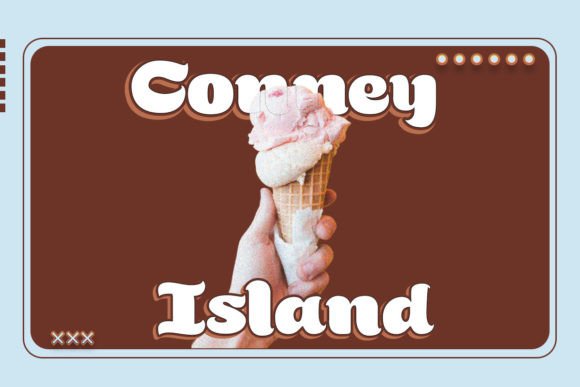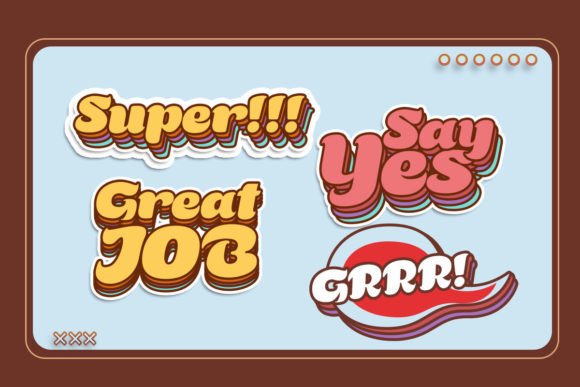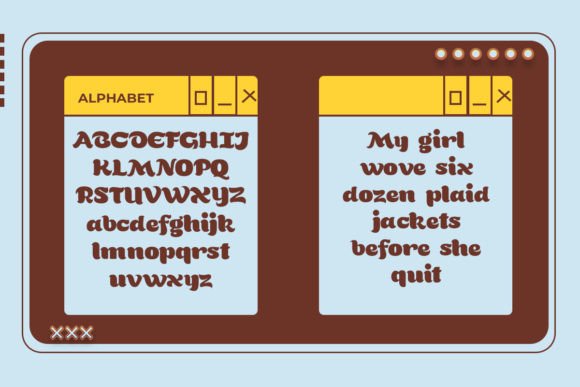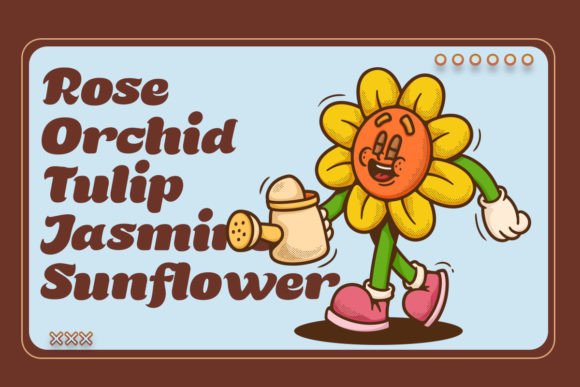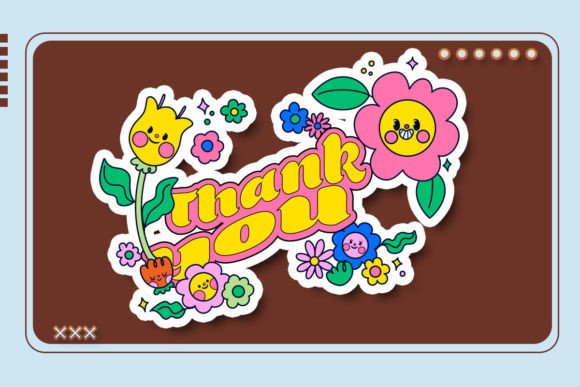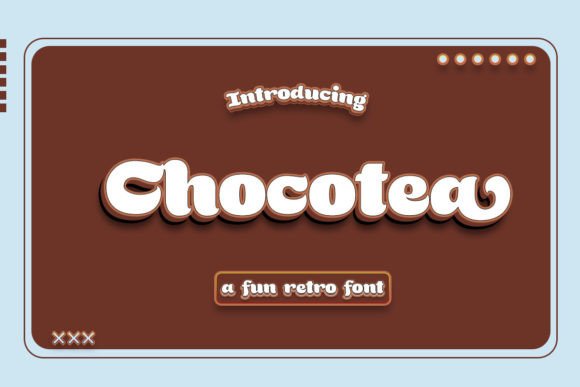
Introducing Chocotea Font: The Ultimate Choice for Playful Designs
Are you a designer, crafter, or educator looking for a font that embodies playfulness and authenticity? Look no further than Chocotea Font! This cute and colorful display font is perfect for any children’s activity or school project, and is sure to bring your designs to life.
What is Chocotea Font?
Chocotea Font is a unique and chunky lettered font that is designed to add a touch of fun and whimsy to your designs. Its playful and authentic style makes it an ideal choice for projects that require a youthful and energetic feel. Whether you’re creating materials for a children’s party, a school project, or a craft activity, Chocotea Font is the perfect choice.
Key Features of Chocotea Font
• Playful and Authentic Style: Chocotea Font has a unique and playful style that is sure to capture the attention of your audience.
• Chunky Lettering: The font features chunky lettering that adds a touch of whimsy and fun to your designs.
• Colorful and Cute: Chocotea Font is a colorful and cute display font that is perfect for children’s activities and school projects.
• Easy to Read: Despite its playful style, Chocotea Font is easy to read and understand, making it perfect for use in a variety of applications.
Uses for Chocotea Font
Chocotea Font is a versatile font that can be used in a variety of applications, including:
• Children’s Activities: Chocotea Font is perfect for creating materials for children’s parties, such as invitations, posters, and activity sheets.
• School Projects: The font is ideal for use in school projects, such as posters, presentations, and reports.
• Crafting and Scrapbooking: Chocotea Font can be used to add a touch of fun and whimsy to craft projects, such as scrapbooking and card making.
• Digital Designs: The font can be used in digital designs, such as social media graphics, blog posts, and website headers.
Benefits of Using Chocotea Font
There are many benefits to using Chocotea Font in your designs, including:
• Increased Engagement: The playful and authentic style of Chocotea Font is sure to capture the attention of your audience and increase engagement.
• Unique and Memorable Designs: Chocotea Font can help you create unique and memorable designs that stand out from the crowd.
Chocotea Font is a unique and playful display font that is perfect for any children’s activity or school project. Its chunky lettering and colorful style make it a great choice for designers, crafters, and educators who want to add a touch of fun and whimsy to their designs. With its ease of use and versatility, Chocotea Font is sure to become a favorite font in your collection.